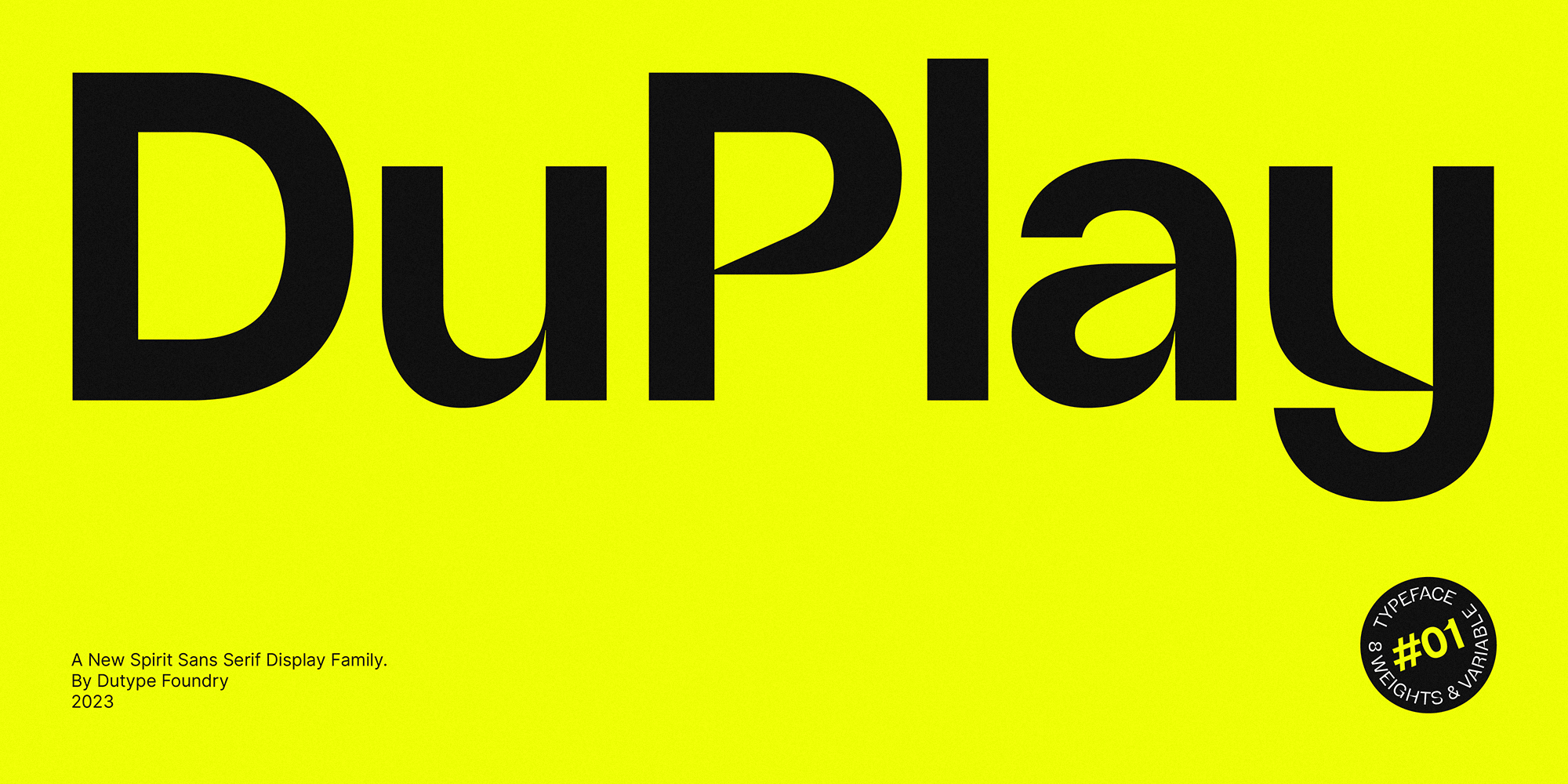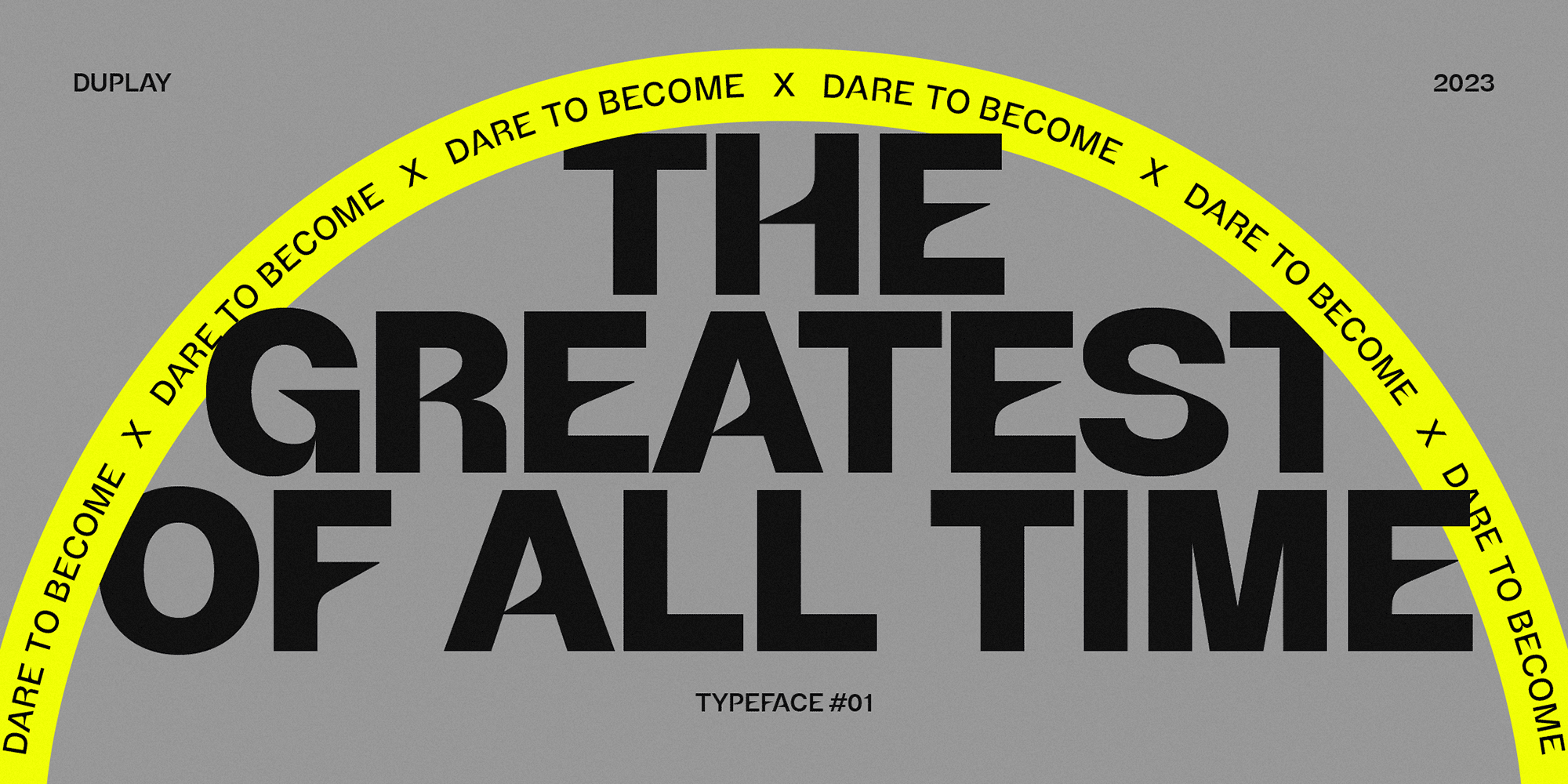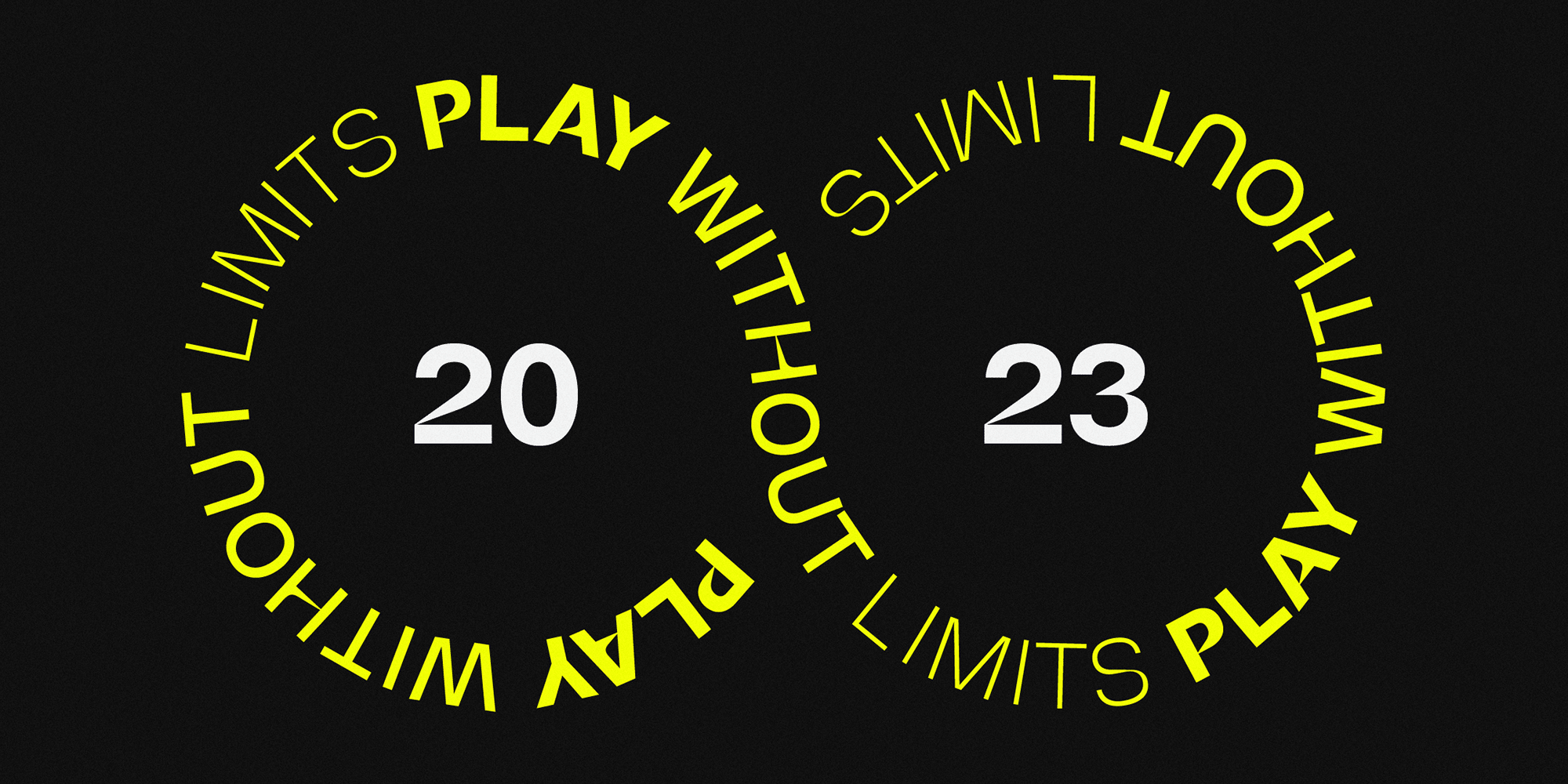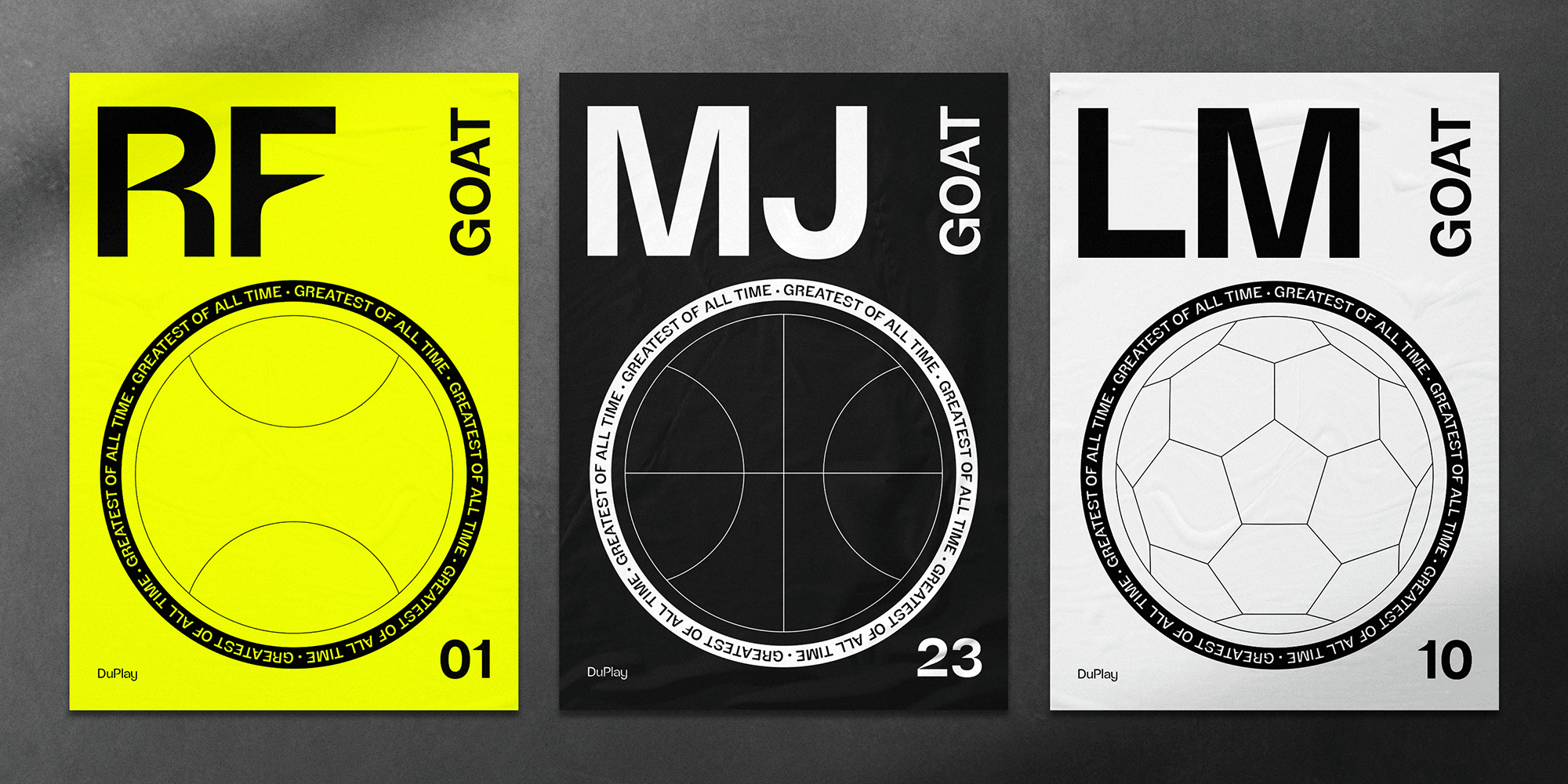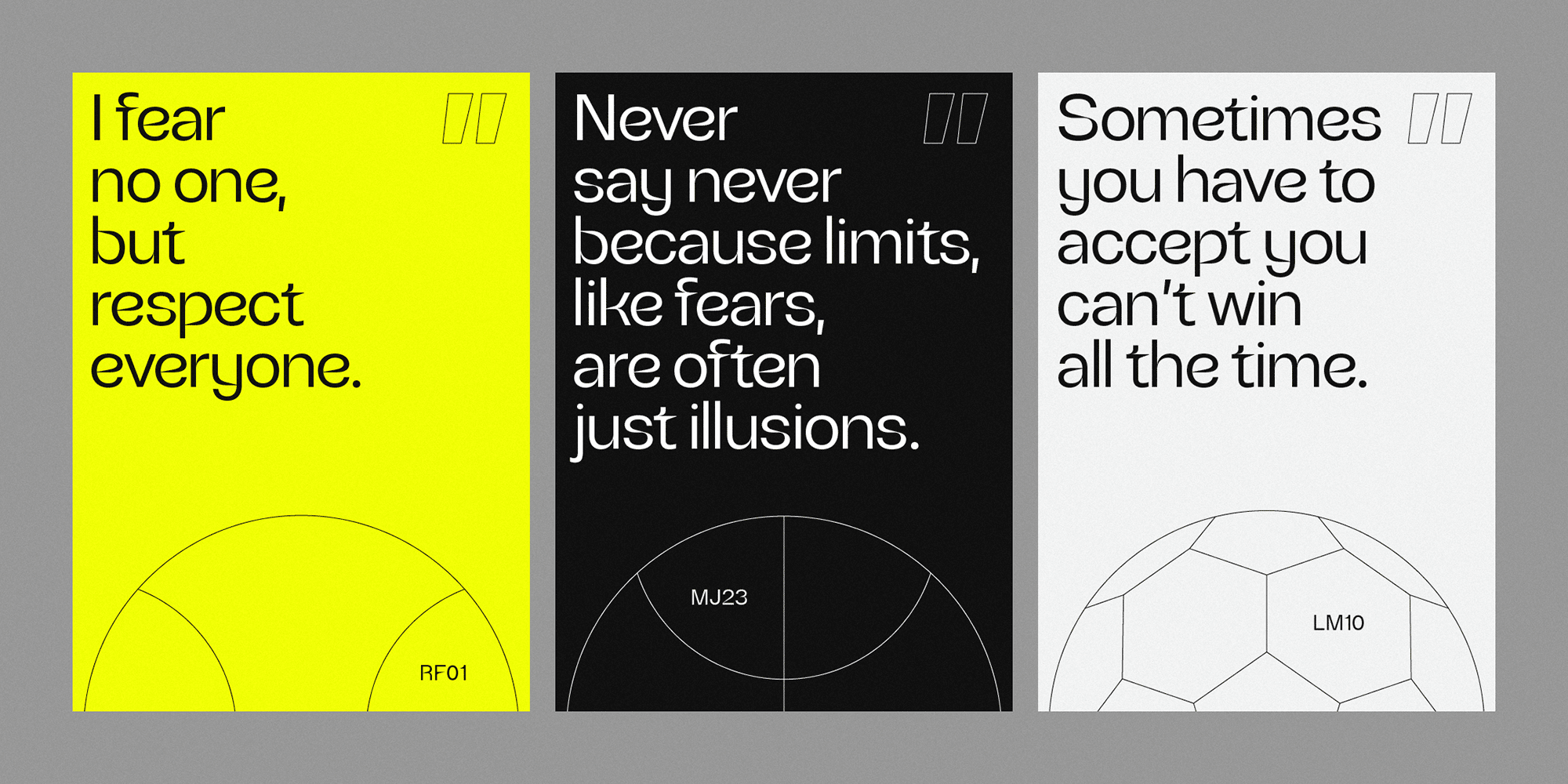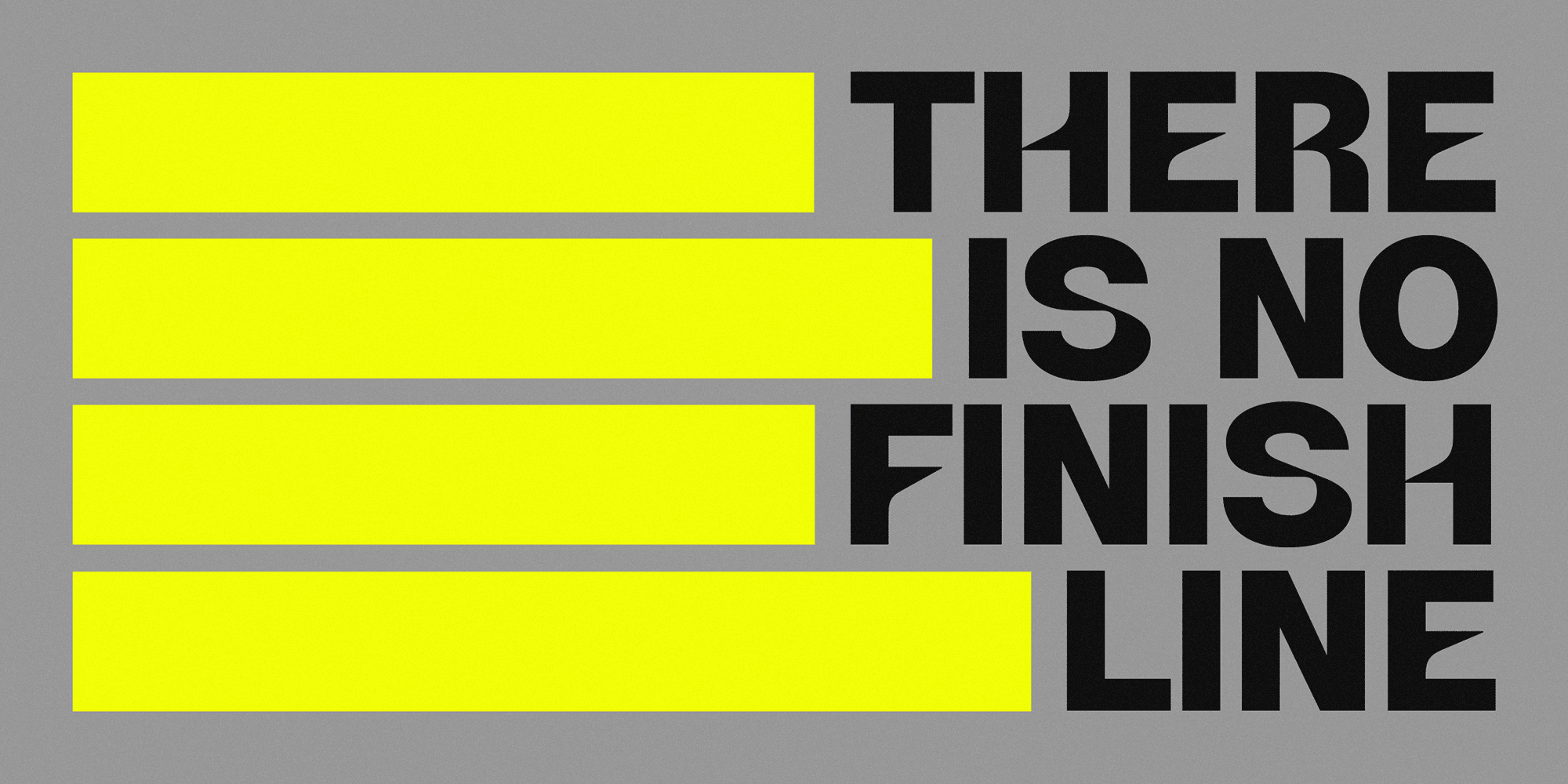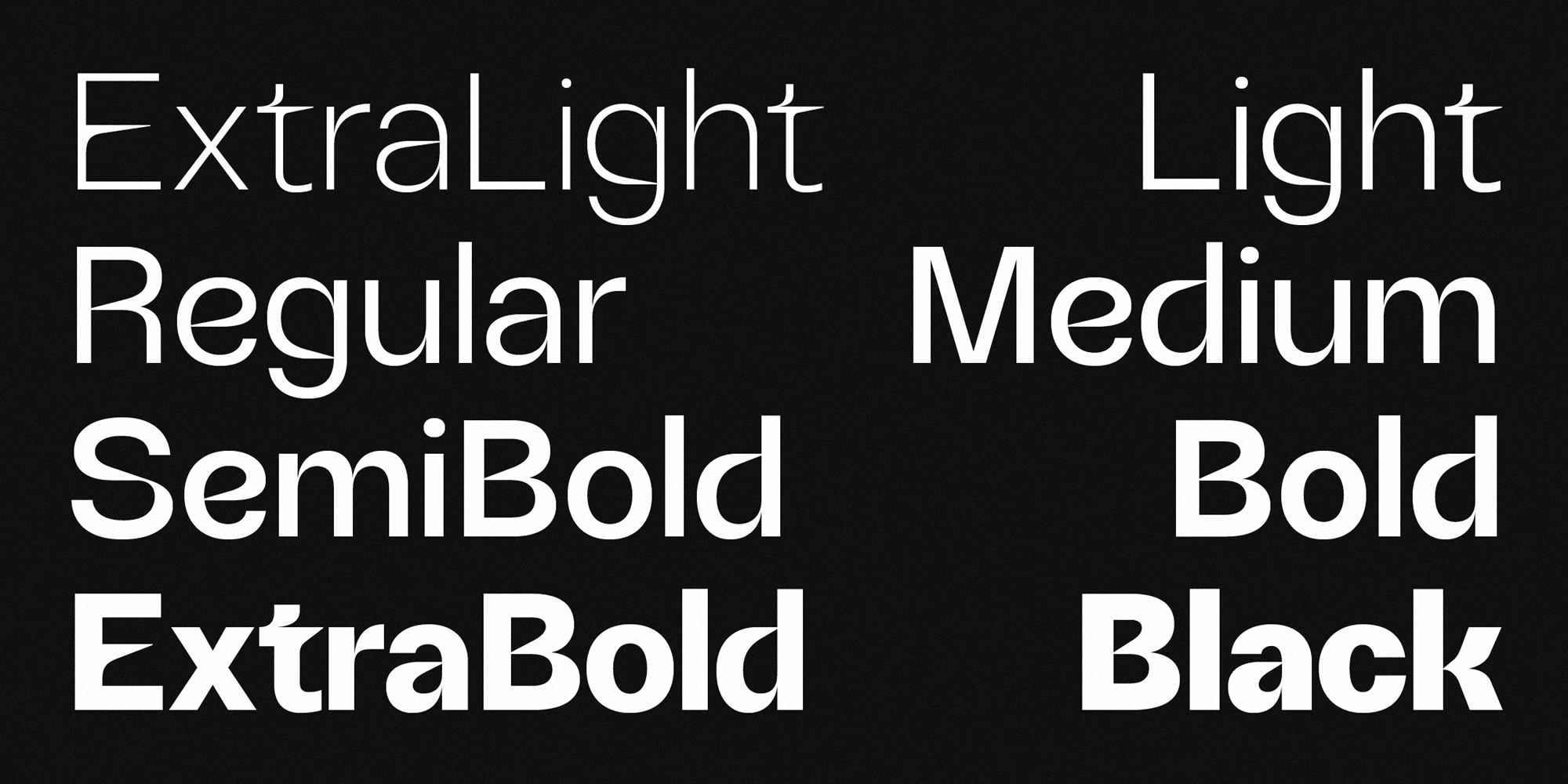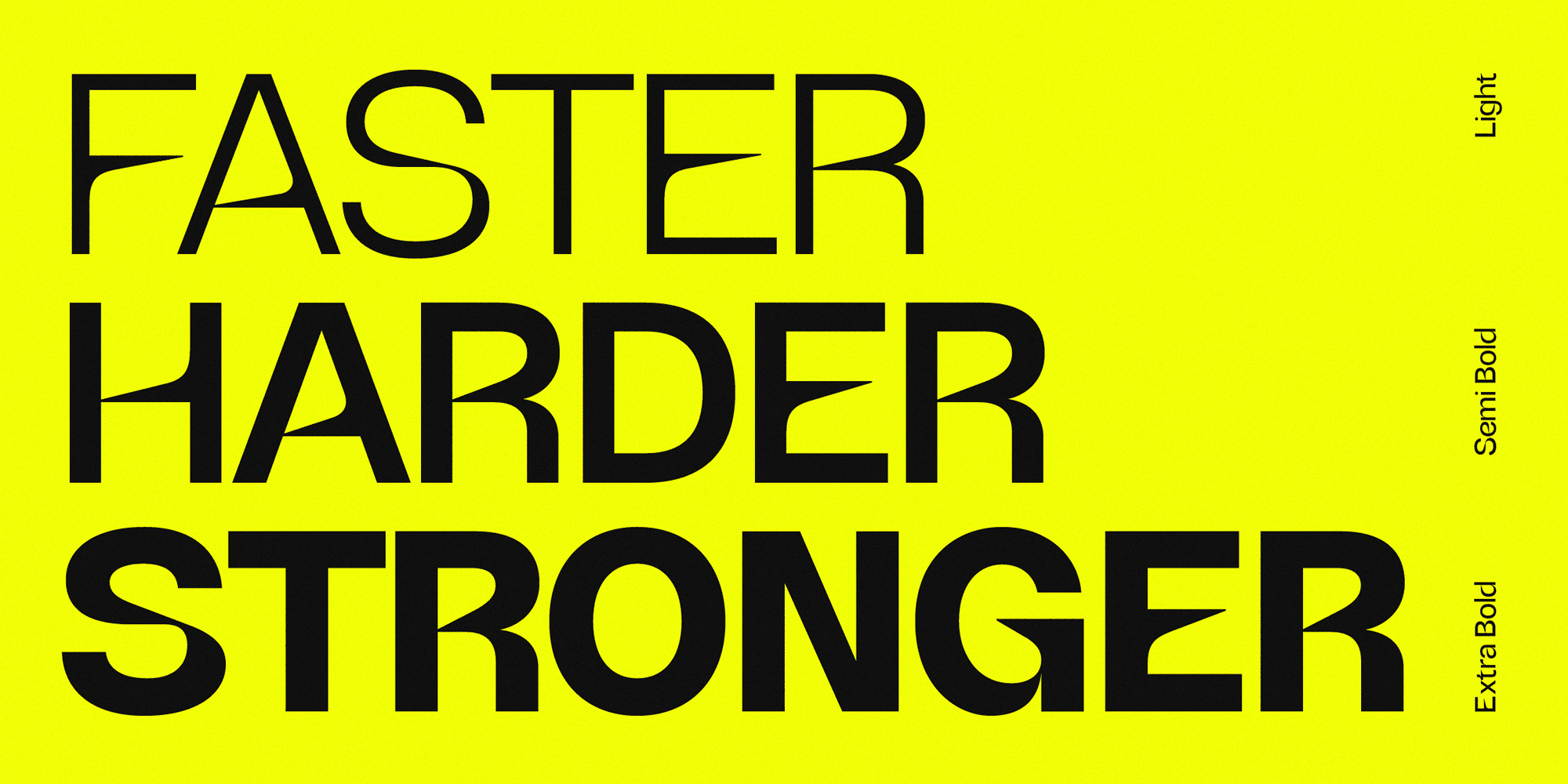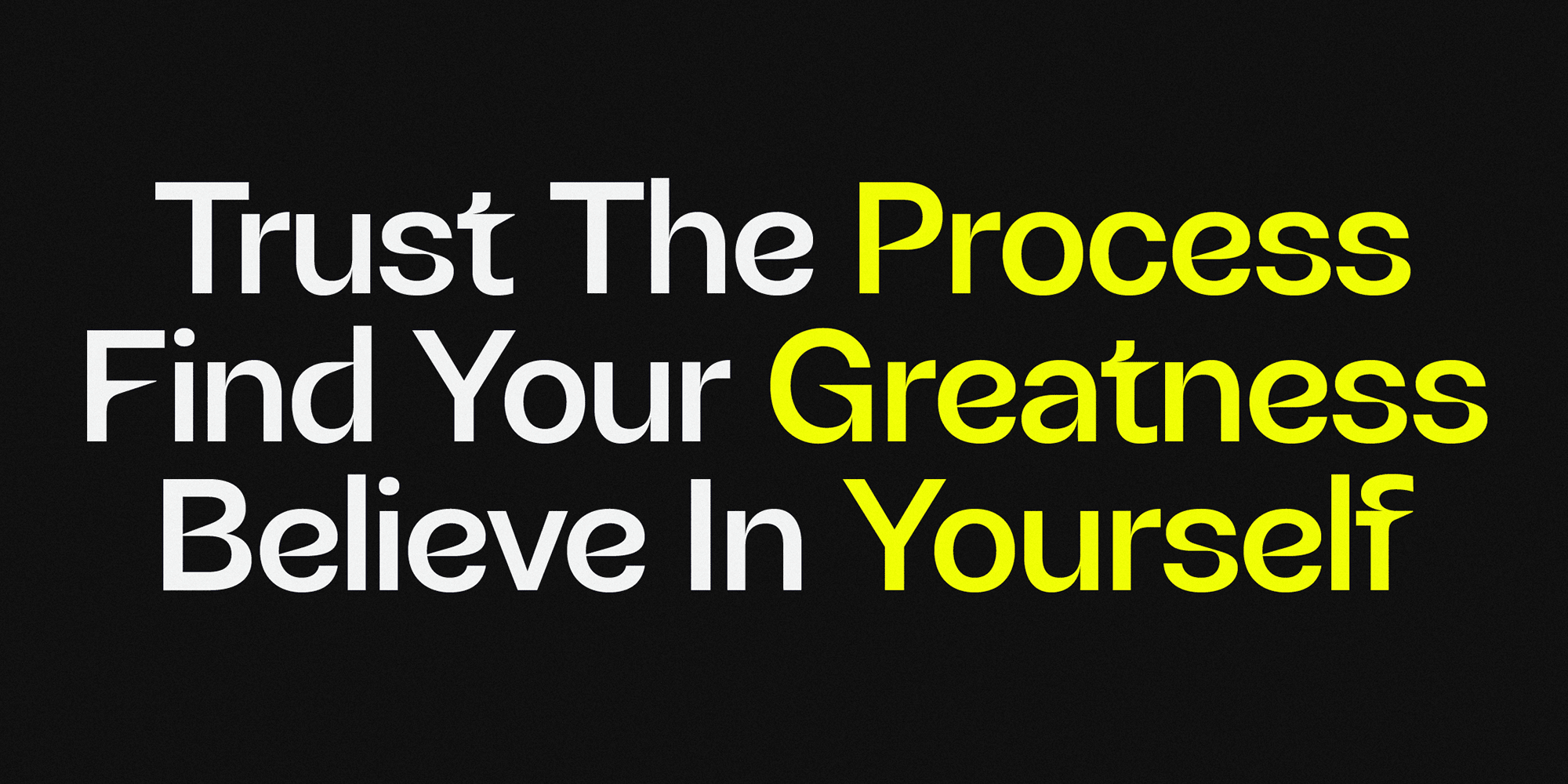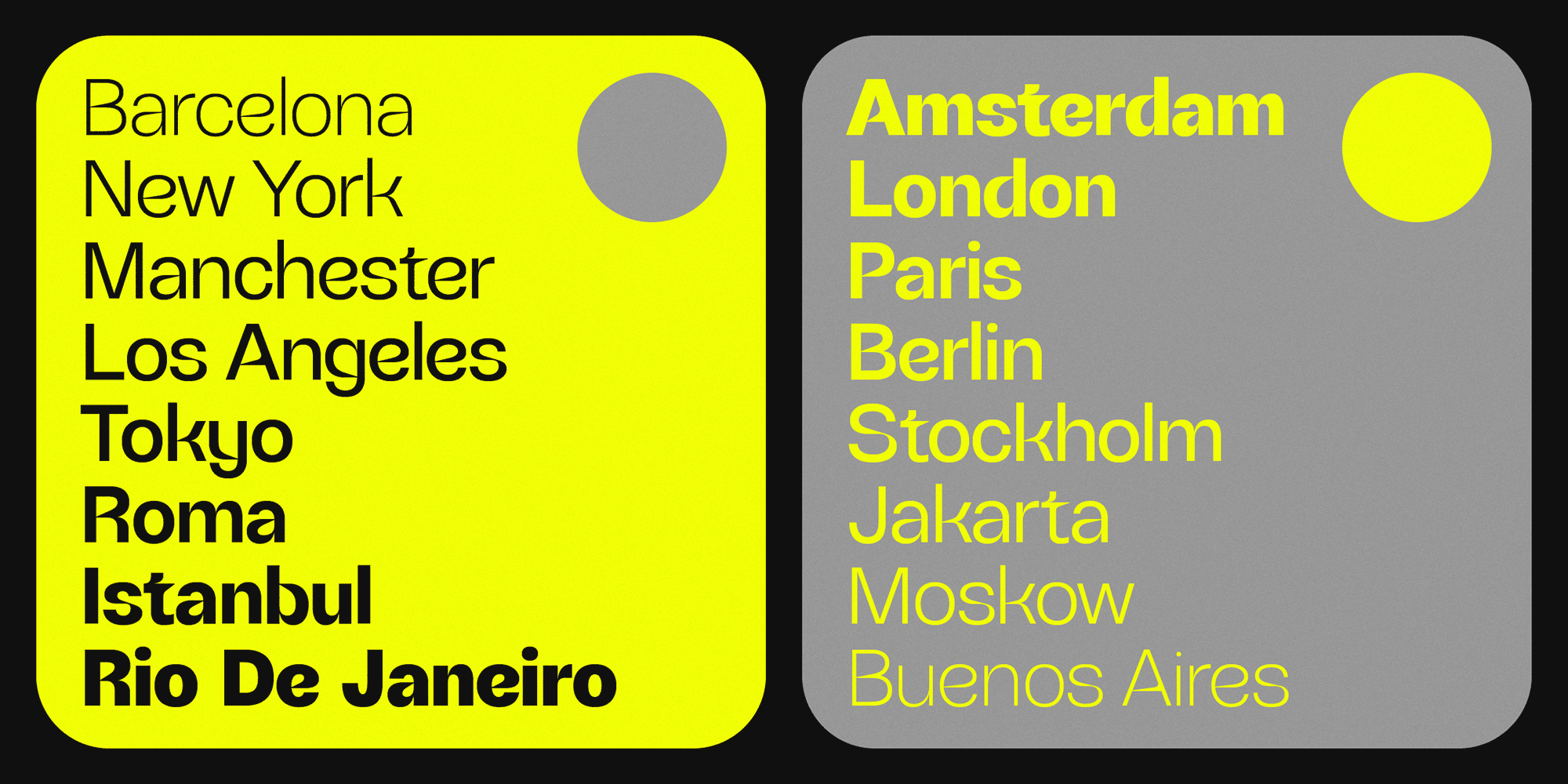
DuPlay
Duplay is a sans-serif designed and developed by Darman Kadir in this late 2023, influenced by famous Swiss-style typefaces like Helvetica and others. This sans-serif typeface will become an alternative solution to enhance your sports and apparel presence. It has a solid and fast appearance, harder in certain font families, and stronger characteristics that will make your image more prominent.
OpenType features
Access Alt Alternates
Standard Ligatures
Discretionary Ligatures
Superscript